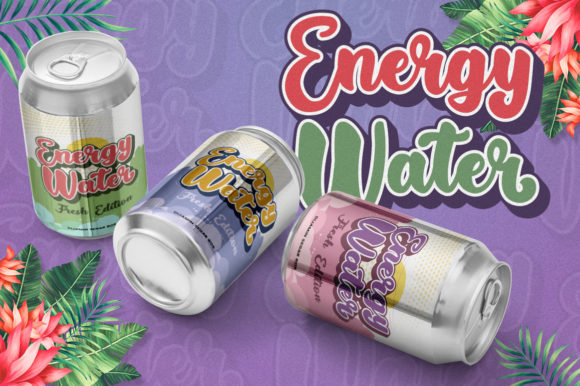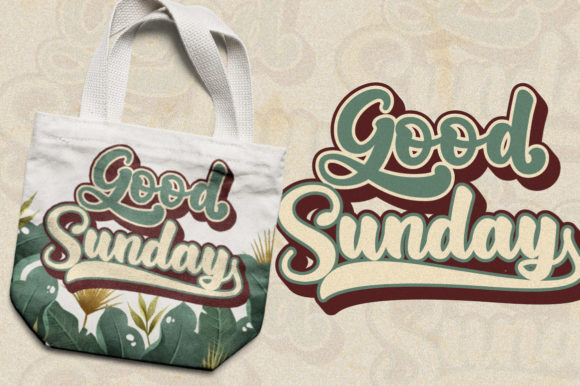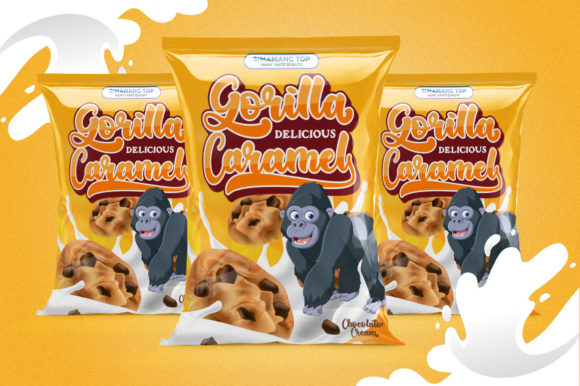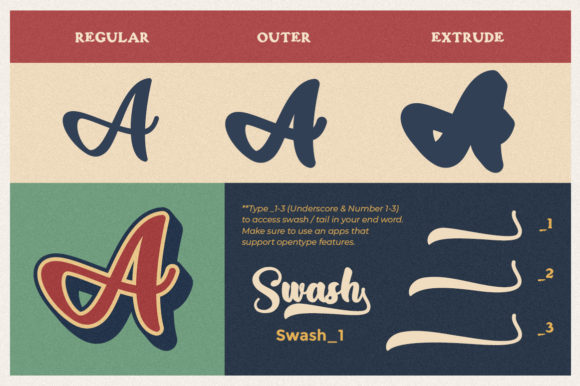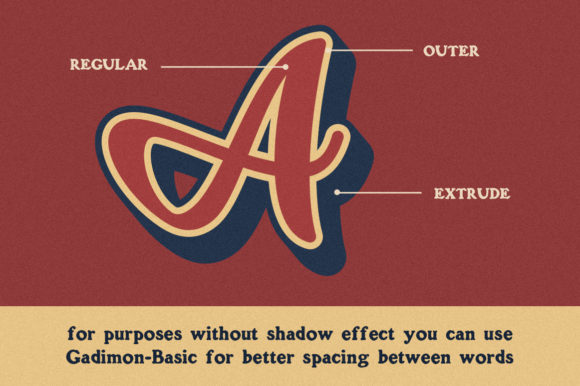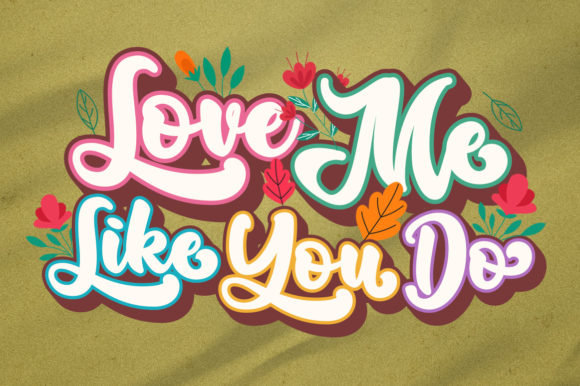
Gadimon Font: Elevate Your Designs with a Retro and Confident Style
Are you looking for a font that can add a touch of nostalgia and style to your designs? Look no further than the Gadimon Font. This retro-looking, thick-lettered handwritten font is perfect for designers and crafters who want to give their headlines and logotype projects a strong, confident, and dynamic look.
What is Gadimon Font?
Gadimon Font is a carefully crafted font designed to bring a stylish touch to your designs. Its thick, bold letters exude confidence and strength, making it perfect for headlines, logotypes, and any other project where you want to make a statement. The font’s retro look and feel will transport your designs back in time, evoking a sense of nostalgia and classic charm.
Key Features of Gadimon Font
- Retro Look and Feel: Gadimon Font has a distinct retro aesthetic that will add a touch of nostalgia to your designs.
- Thick and Bold Letters: The font’s thick, bold letters make it perfect for headlines and logotypes where you want to grab attention.
- PUA Encoded: Gadimon Font is PUA encoded, which means you can access all the glyphs and swashes with ease, giving you maximum flexibility and creative control.
- Strong, Confident, and Dynamic: The font reads as strong, confident, and dynamic, making it perfect for designers who want to create a lasting impression.
Why Choose Gadimon Font?
There are many fonts available, but Gadimon Font stands out from the crowd. Here are a few reasons why:
- Unique Style: Gadimon Font has a unique style that will set your designs apart from others.
- Ease of Use: The font is easy to use and can be accessed with ease, thanks to its PUA encoding.
- Versatility: Gadimon Font is versatile and can be used for a wide range of projects, from headlines and logotypes to posters and flyers.
- Nostalgic Character: The font’s retro look and feel will add a touch of nostalgia to your designs, making them more engaging and memorable.
How to Use Gadimon Font?
Using Gadimon Font is easy. Here are a few tips to get you started:
- Headlines and Logotypes: Use Gadimon Font for headlines and logotypes to add a touch of style and sophistication.
- Posters and Flyers: Use the font for posters and flyers to grab attention and create a lasting impression.
- Branding and Identity: Use Gadimon Font for branding and identity projects to create a strong and confident visual identity.
- Experiment with Glyphs and Swashes: Take advantage of the font’s PUA encoding to experiment with glyphs and swashes, and add more creativity to your designs.
In conclusion, Gadimon Font is a powerful and stylish font that can elevate your designs to the next level. Its retro look and feel, thick and bold letters, and PUA encoding make it perfect for designers and crafters who want to create a lasting impression. Whether you’re working on headlines, logotypes, posters, or flyers, Gadimon Font is a great choice. So why wait? Download Gadimon Font today and start creating stunning designs that will leave a lasting impression on your audience.